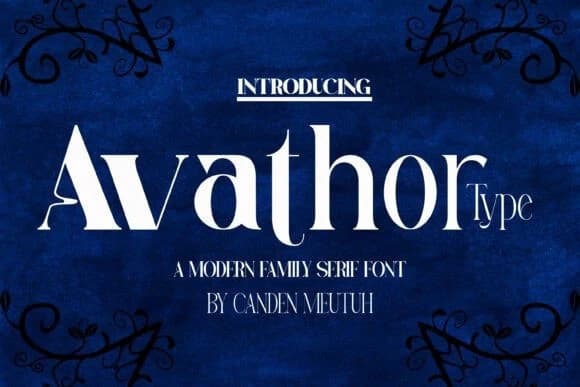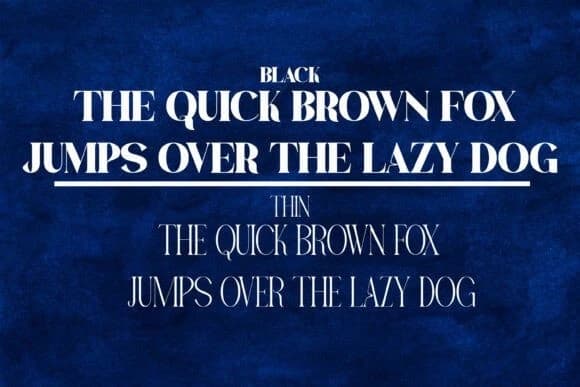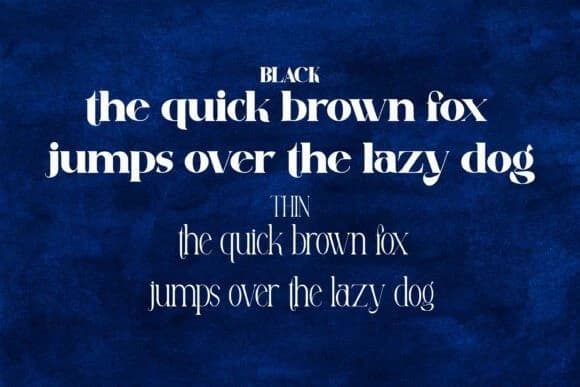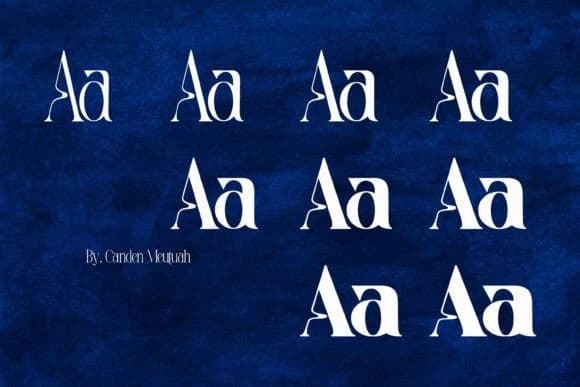
Avathor Type Font
Avathor Type Font is a bold and stylish family of condensed serif fonts, blending retro aesthetics with modern minimalism. Designed with uppercase and lowercase characters, Avathor Type features bold proportions, clean lines, and bold curves, giving your designs a bold personality.
Avathor Type